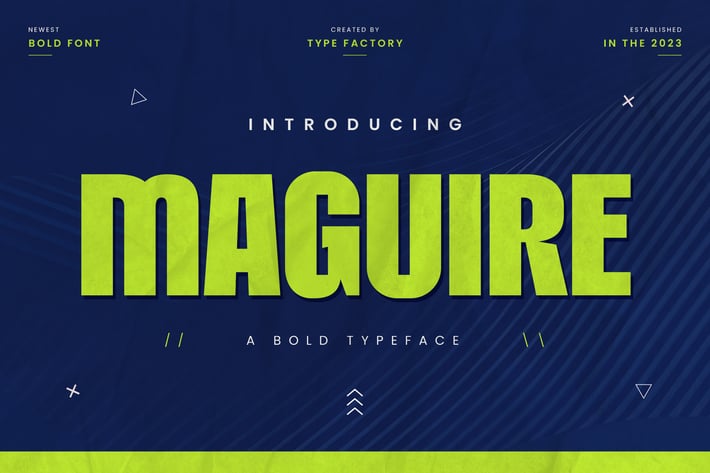
Maguire is a striking bold typeface that exudes strength and confidence. With its solid, impactful letterforms, this font is perfect for headlines, posters, logos, and branding projects that need to make a powerful statement. Maguire’s robust design offers excellent readability while maintaining a modern and commanding presence, making it ideal for both print and digital media. Whether used for corporate designs or creative layouts, Maguire ensures your message is delivered with authority and style.
– Lowercase
– Ligature
– Multilingual Support